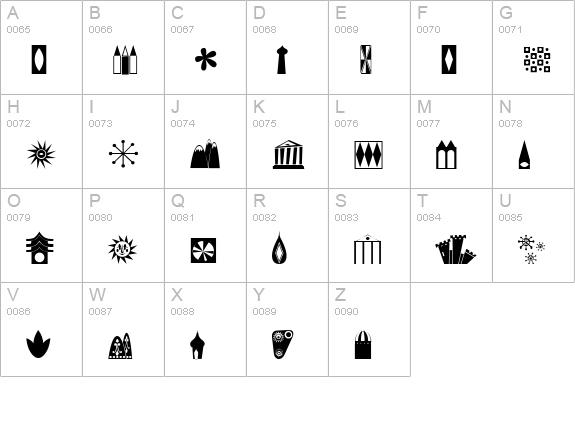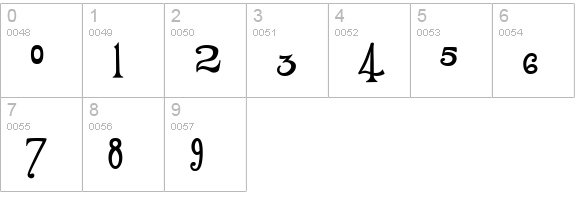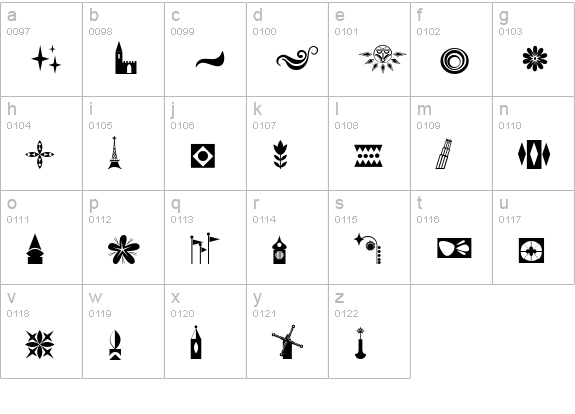
BaileywickHappyGramsJF Font Details
BaileywickHappyGramsJF font is a delightful and whimsical typeface that exudes joy and charm. With its playful curves and bouncy letterforms, this font is perfect for adding a touch of fun to any design project. Whether you're creating greeting cards, party invitations, or social media graphics, BaileywickHappyGramsJF will bring a smile to your audience's face. The best part? BaileywickHappyGramsJF font is available for free download at FontsMarket.com. Now you can easily access this cheerful font and incorporate it into your creative endeavors without any cost. Don't miss out on the opportunity to spread happiness with BaileywickHappyGramsJF font - download it today and let your designs shine with its playful spirit!